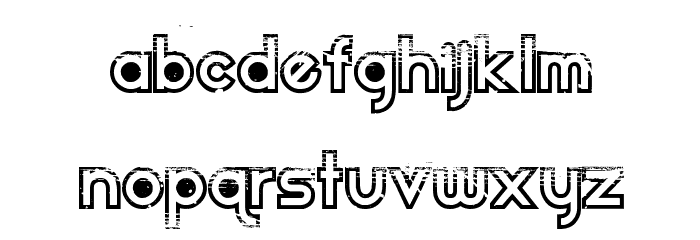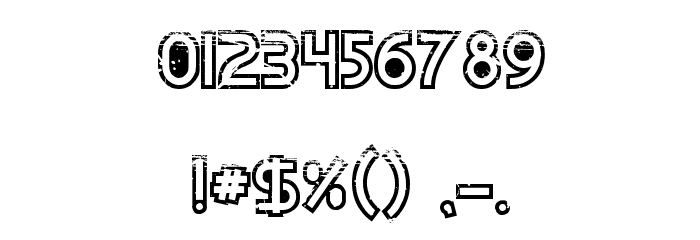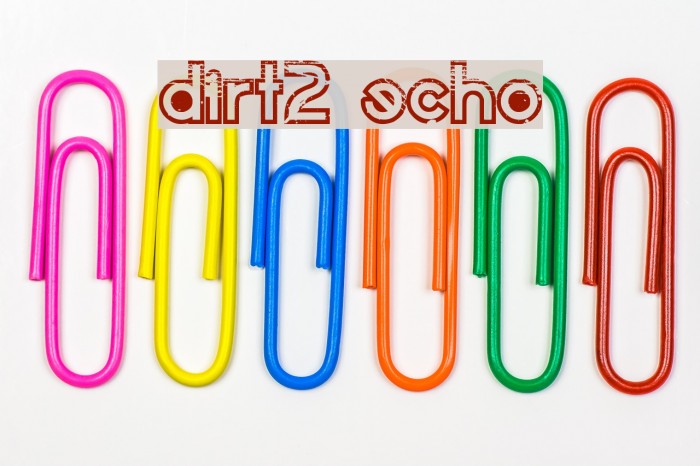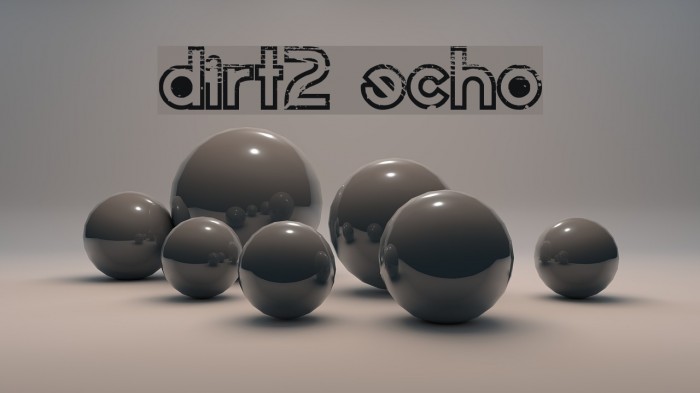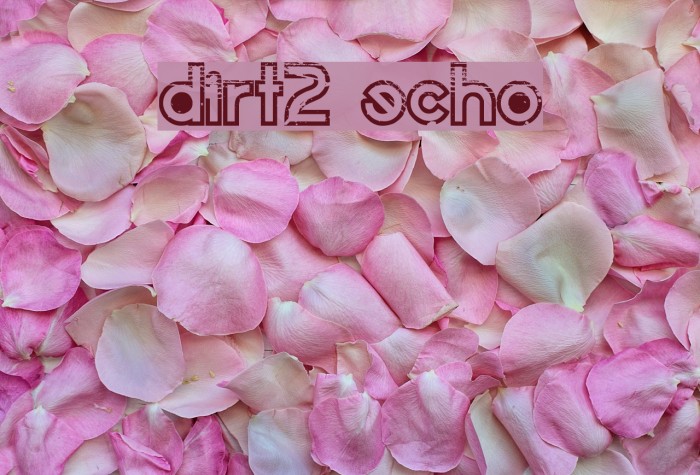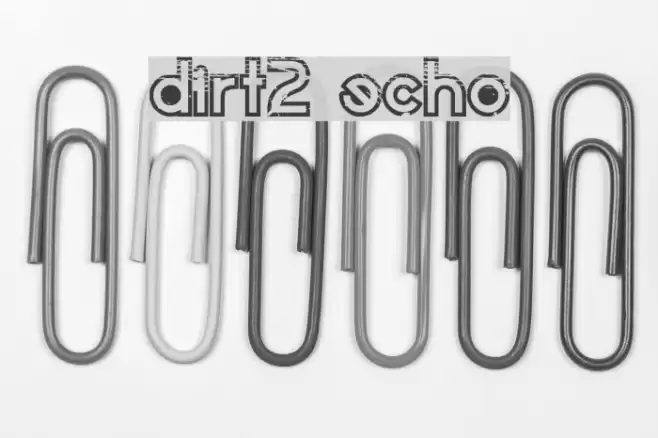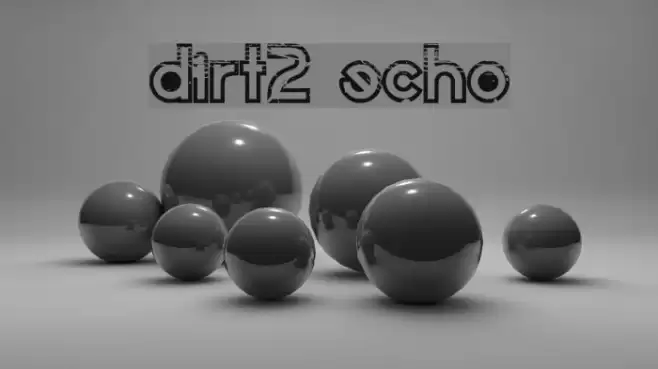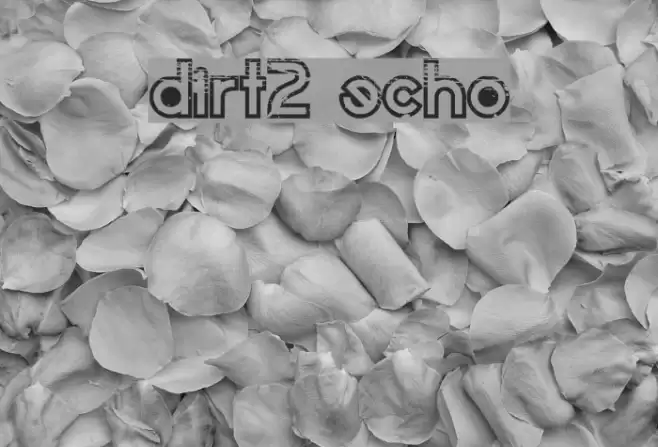
Dirt2 Echo Font
This font features a bold, distressed style with a unique, grungy texture that gives it a worn, vintage appearance. The characters are outlined with a shadow effect, enhancing the rugged aesthetic. The uppercase and lowercase letters maintain a consistent design, with rounded edges and a slightly condensed form. Numbers and special characters follow the same distressed pattern, making them cohesive with the overall style. This font's distinctive look is ideal for projects that require a bold, eye-catching design with a touch of nostalgia.
A bold, distressed font with a grungy, vintage texture and shadow effect.
- Proposed Projects: Ideal for posters, album covers, branding, and any design needing a bold, vintage look.
- Overall Style: Vintage